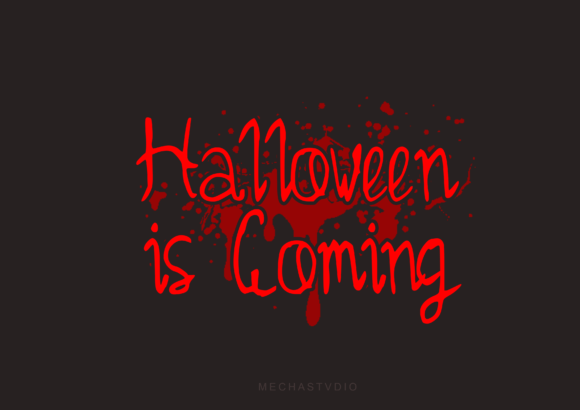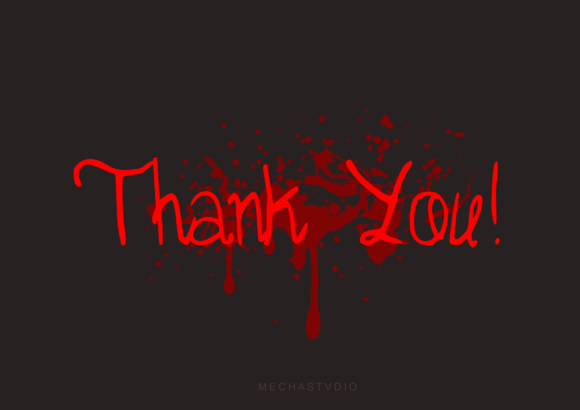
Introduction to Not Constant Font
Have you ever stared at a blank page, waiting for the perfect font to come alive and transform your creative project? It’s a feeling many designers know all too well. The right font can make all the difference in setting the tone for a design and captivating your audience. That’s where the Not Constant Font comes in – a spine-chilling, handwritten font that adds a touch of horror and eeriness to any project.
As a valuable design resource, the Not Constant Font is perfect for those looking to create a high-quality, unique visual experience. Whether you’re working on a spooky-themed poster, a horror novel cover, or a promotional campaign that needs a bold statement, this font is sure to deliver. And the best part? It’s available for free download, allowing you to experiment with it without breaking the bank.
Key Features of Not Constant Font
- Unique, Hand-Drawn Design: Not Constant Font is a creative project that offers a one-of-a-kind, hand-drawn design perfect for various high-quality projects.
- Customizable: The font is fully customizable, allowing designers to adjust its size, color, and style to suit their creative project’s needs.
- Perfect for Digital and Print Projects: Not Constant Font is suitable for both digital and print projects, making it a versatile design resource for creatives.
Honest Review: Not Constant Font
As a designer, I’m always on the lookout for high-quality design resources that can elevate my creative projects. Recently, I stumbled upon the Not Constant Font, and I’m excited to share my honest review with you.
- ✨ Unique and modern design aesthetic that adds a touch of sophistication to any project.
- ✨ Transparent background, allowing for seamless integration with any design element.
- ⚠️ Limited font styles and weights available, which may not cater to every design need.
- ⚠️ Some users may find the font too minimalist, which may not be suitable for all creative projects.
Overall, I’m impressed with the Not Constant Font, and I would definitely recommend it as a design resource. While it may have its limitations, its unique design and high-quality fonts make it a valuable addition to any designer’s toolkit.
Not Constant Font is a versatile design resource that can be used in a variety of creative projects, including logos, brochures, and social media graphics. Its transparent background and high-quality design make it a popular choice for designers.
Tips for Getting the Most Out of Not Constant Font
For the best results, use Not Constant Font in conjunction with a clear and concise design concept. Experiment with different font sizes and styles to add visual interest to your design. Additionally, consider using Not Constant Font in combination with other design elements, such as images and graphics, to create a cohesive and engaging design.